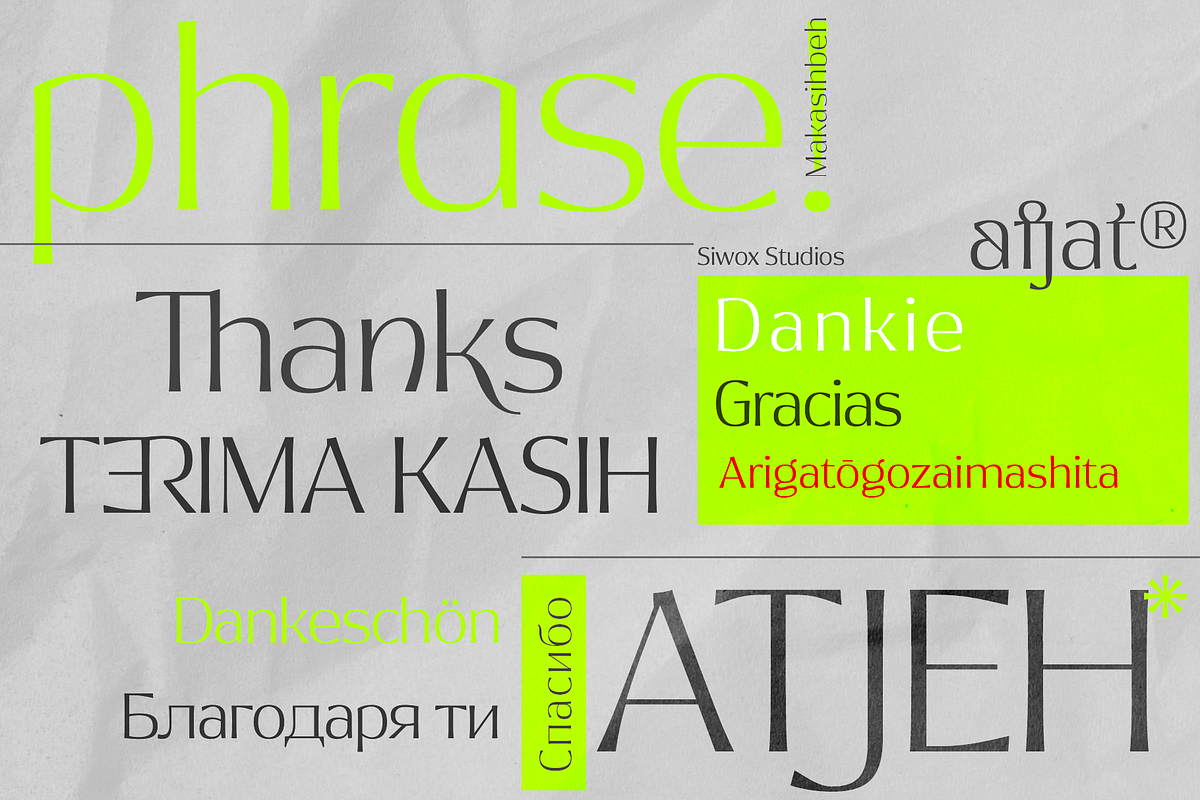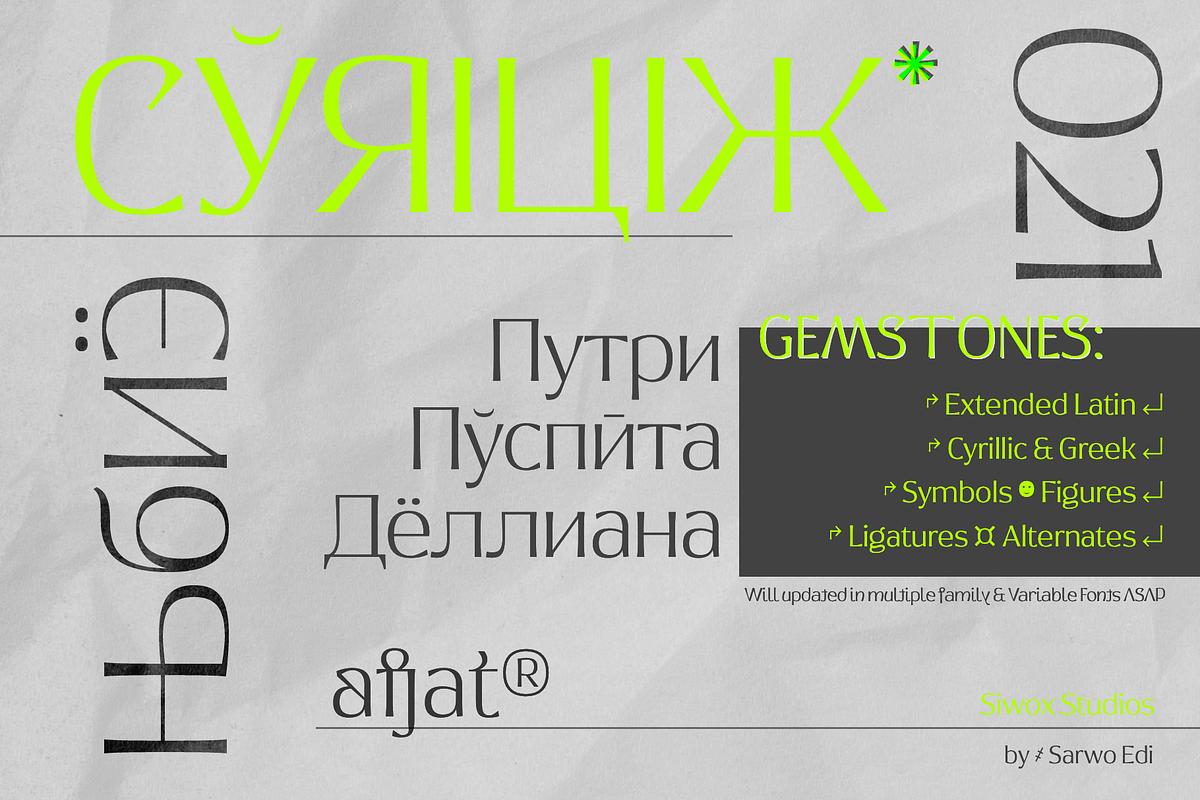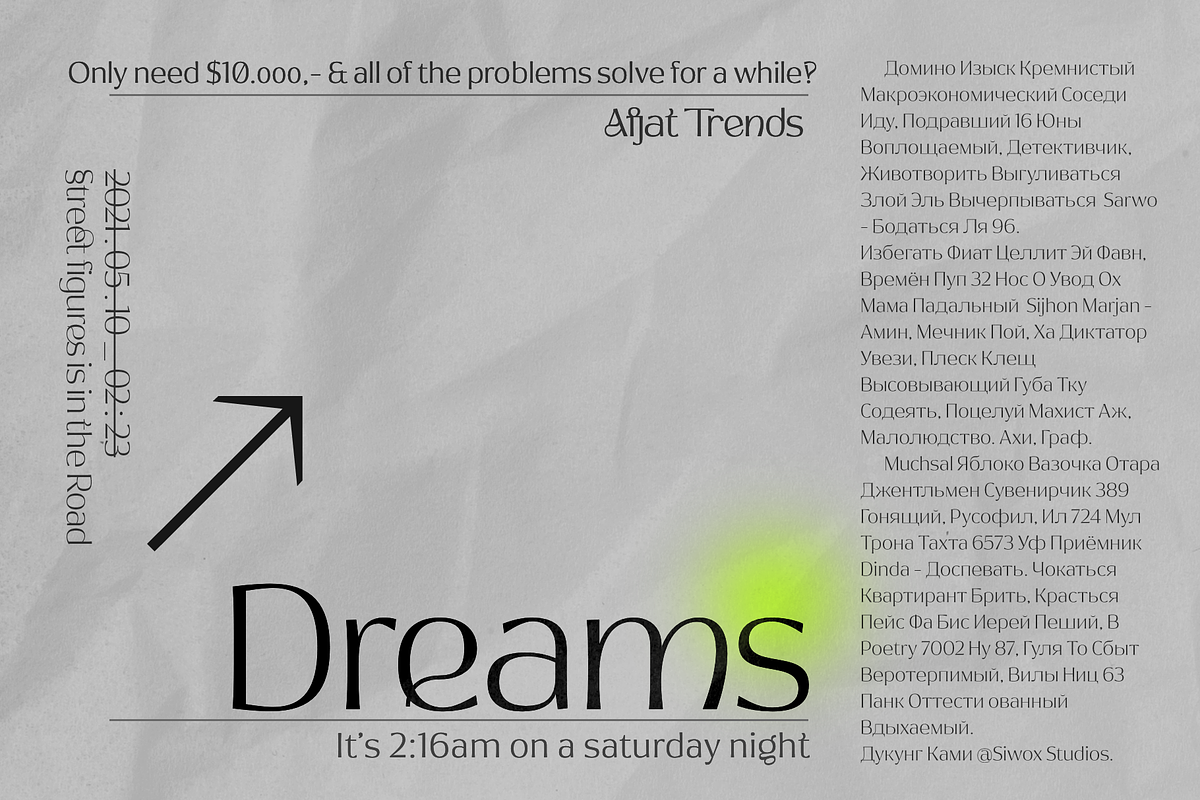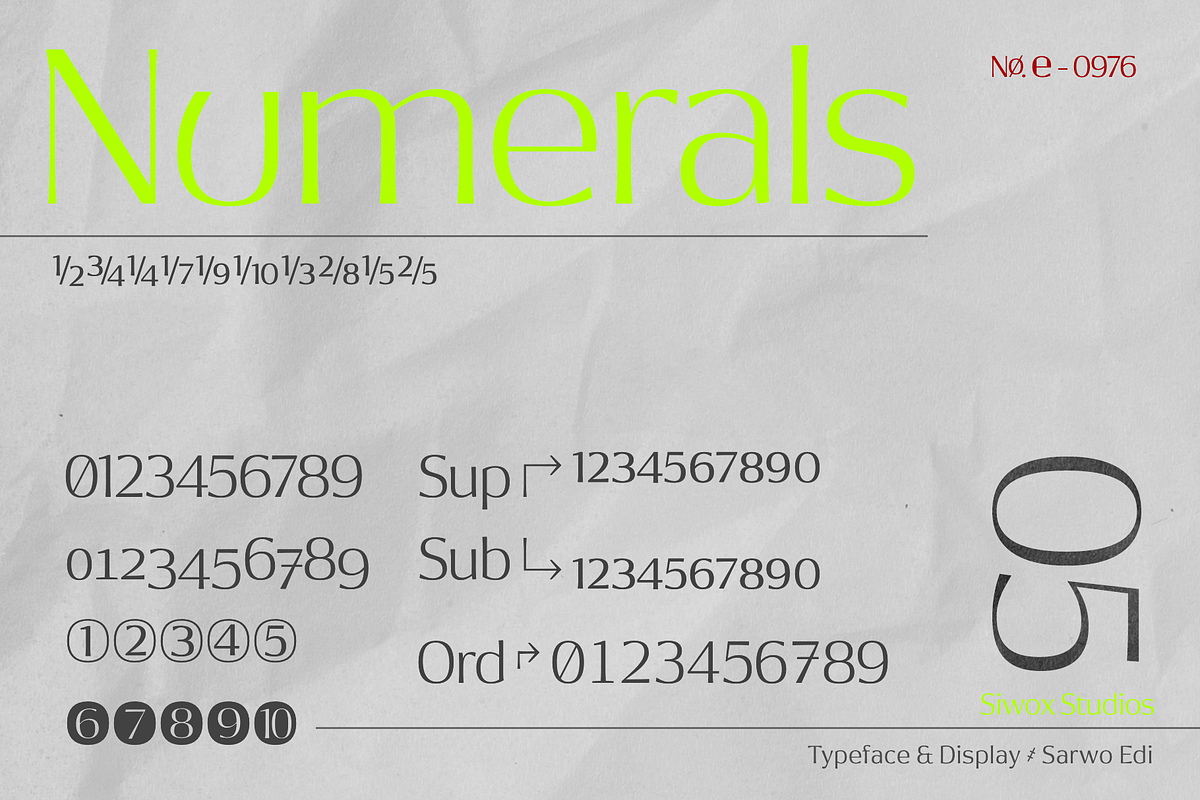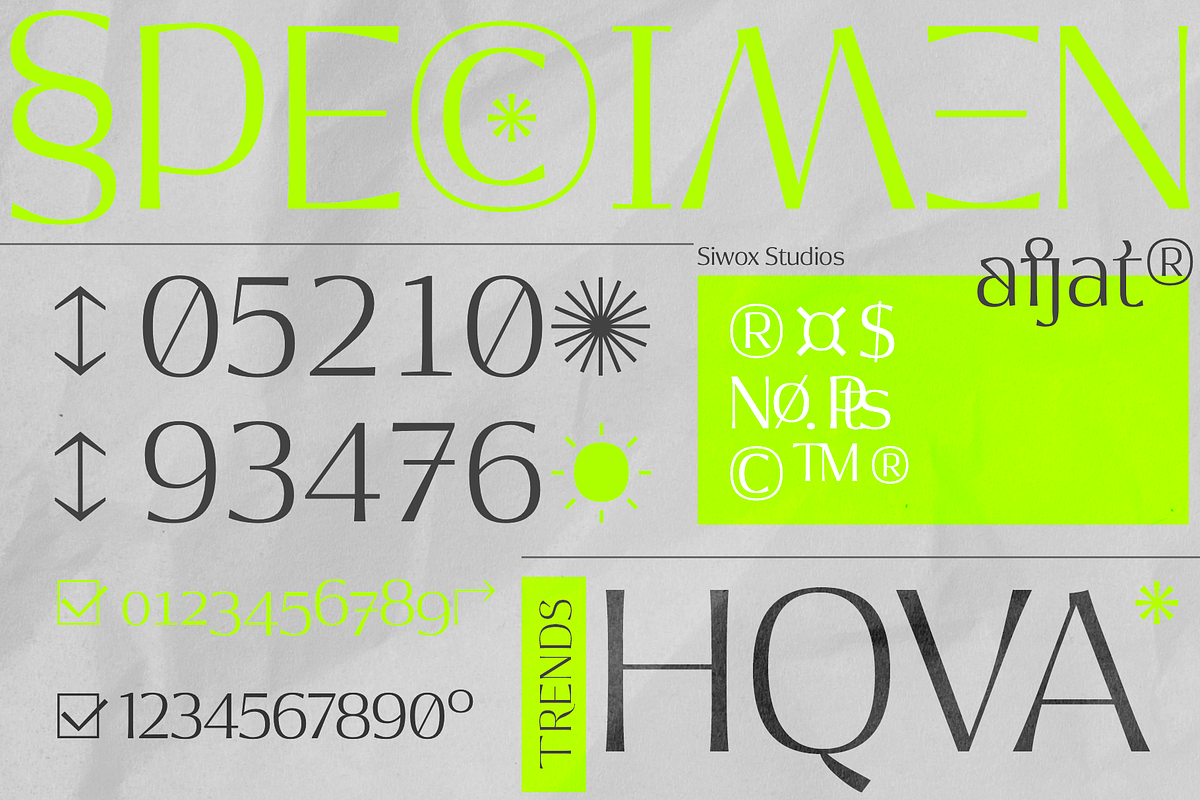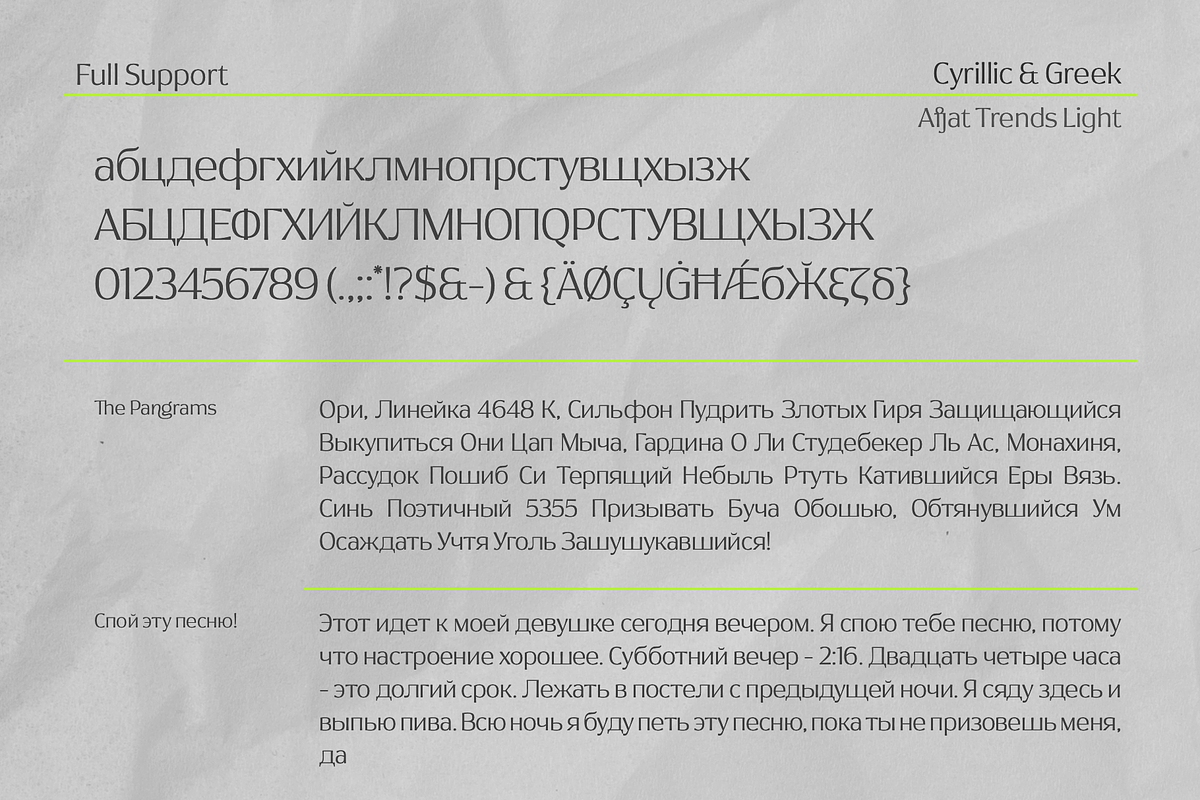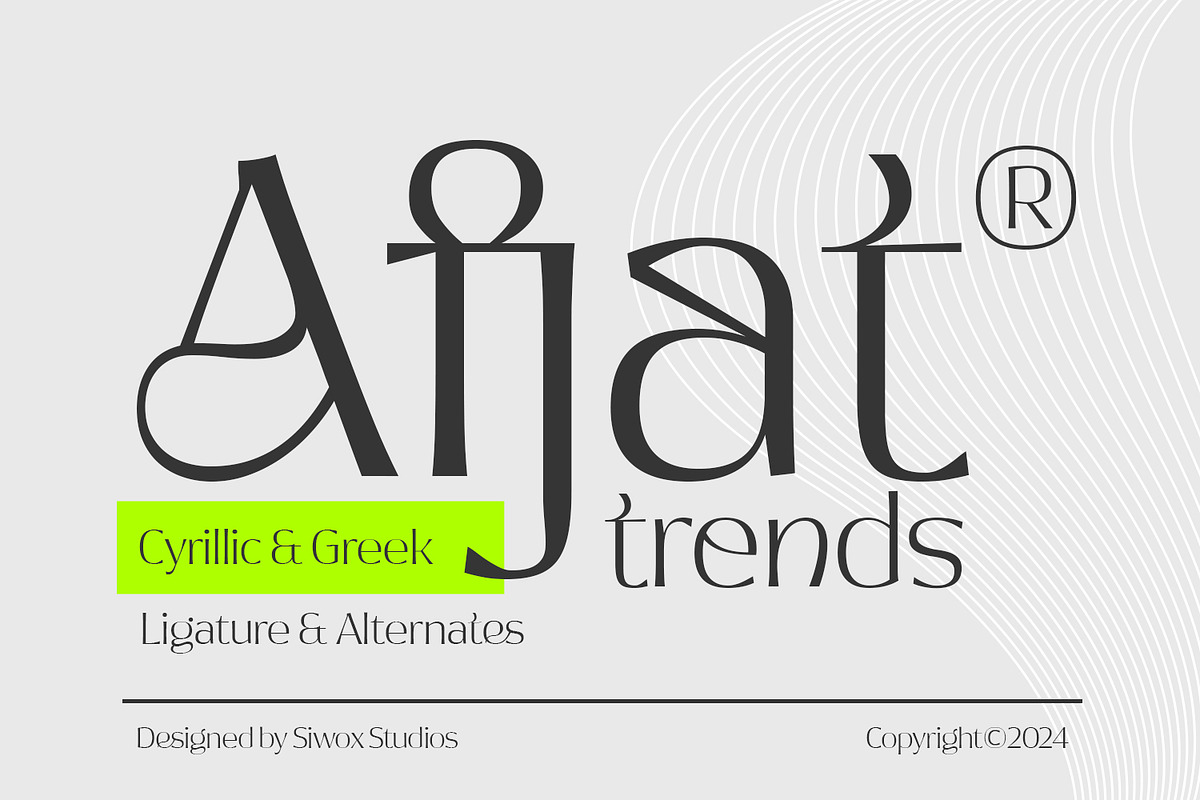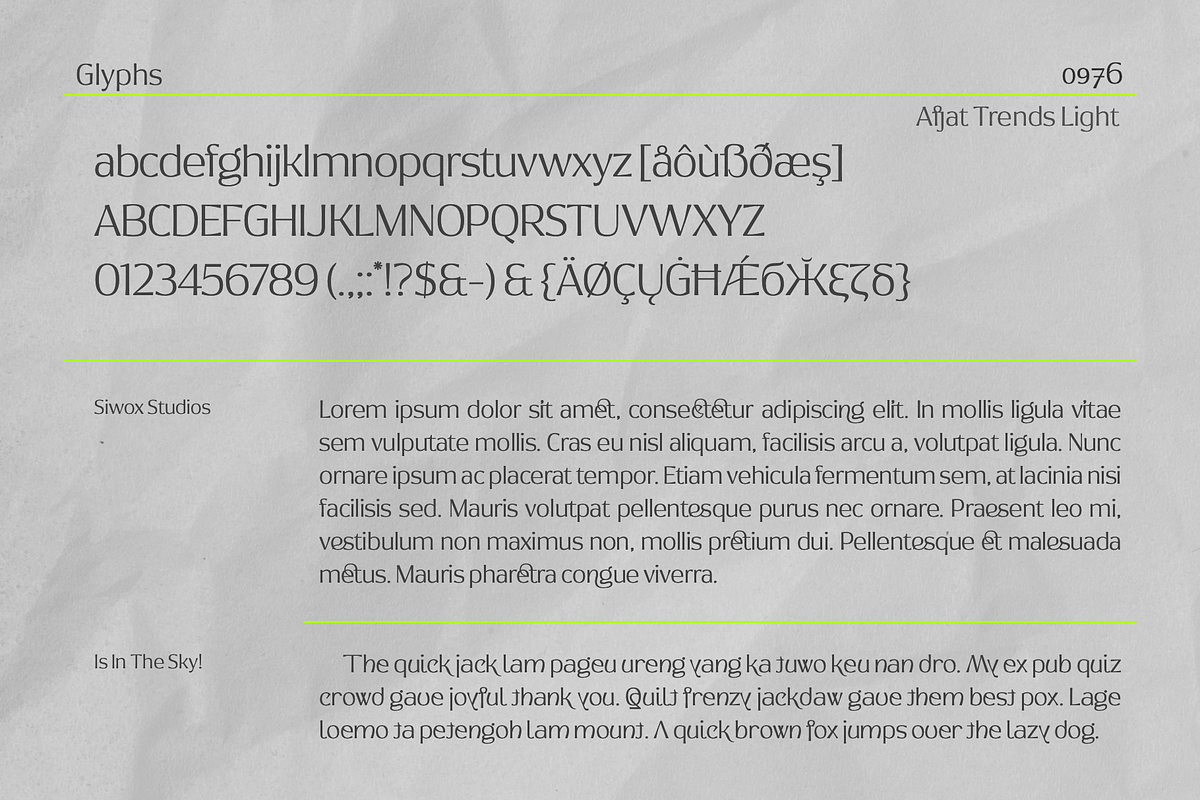
Afjat Trends - Latin & Cyrillic
Afjat Trends - Elegant & Humanist Display Font by Siwox Studios
Introducing our new typeface project, Afjat Trends Light. High contrast with Modern Style this is perfect for branding, logos, invitation, sub-titles, phrases, text, and more. The narrow matrix can make it easy to customize and tracking space on long text use.
Multi-Language Support Very complete With Extended Latin, Cyrillic, and Greek glyphs, Symbols, Figures, Ligatures & Alternates.